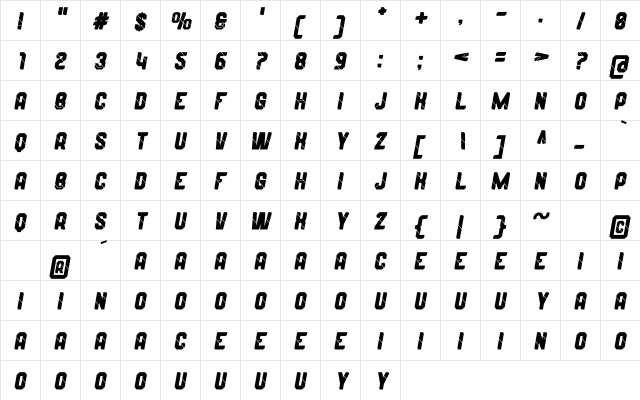
Wynford Solid Alt. Italic
Design Context for Wynford Solid Alt. Typeface
Wynford Solid Alt. takes a measured approach to typography — its balanced proportions and neutral character make it a reliable workhorse for both digital and print work. The dynamic lean of this cut emphasises speed and emphasis in any layout.
Pro Tip: Use Wynford Solid Alt. for emphasis, pull quotes, and subheadings where its slanted energy can add rhythm to the layout.